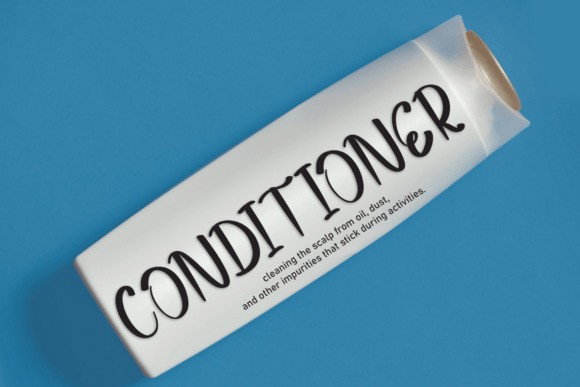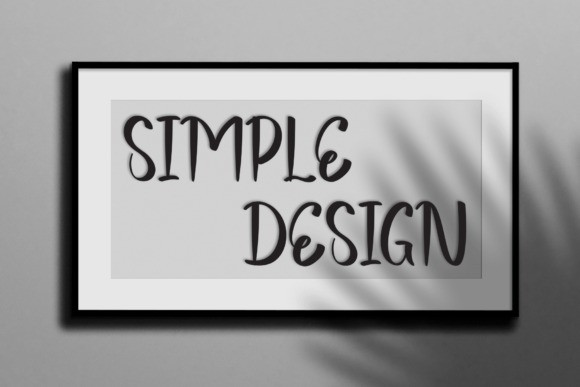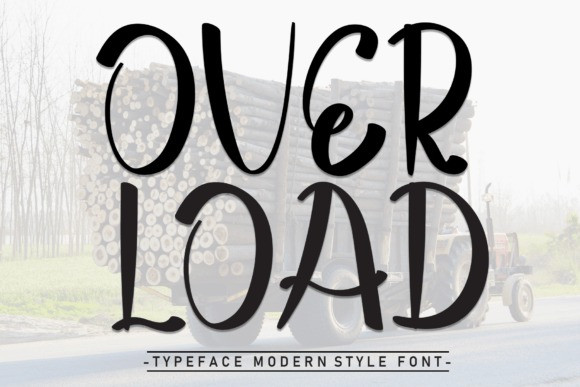
Over Load Font
Over Load Font is a sweet and friendly handwritten font. Fresh and cute, this font is ideal for writing wedding invitations, cards, or any other design that might need a fun touch!